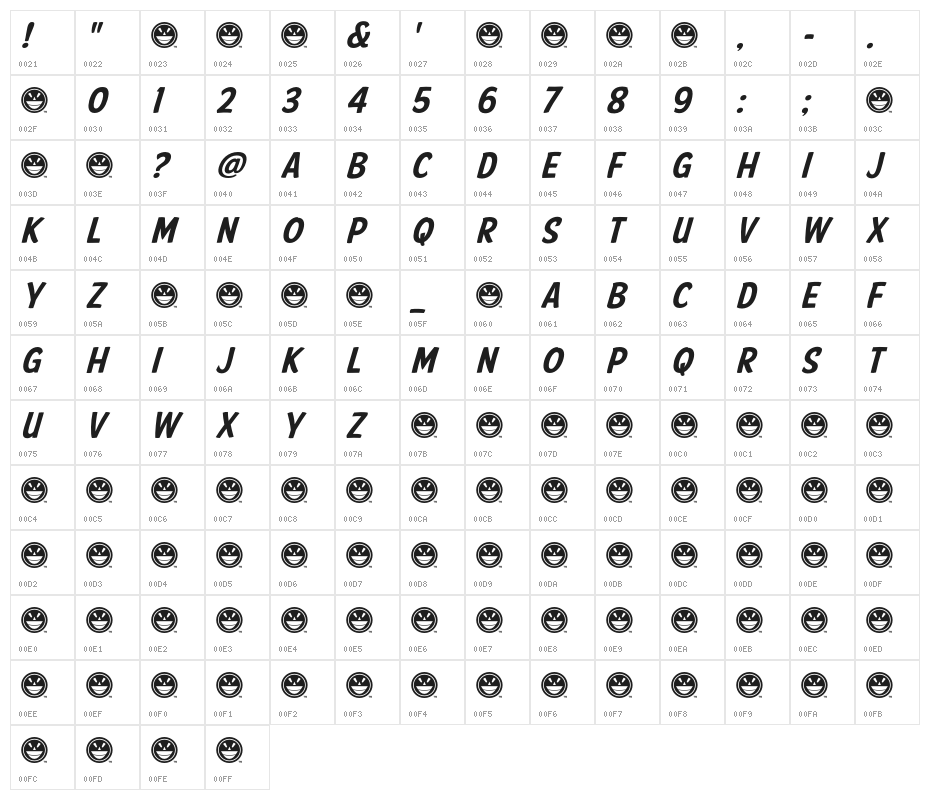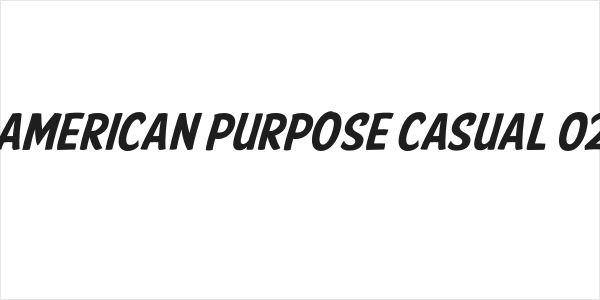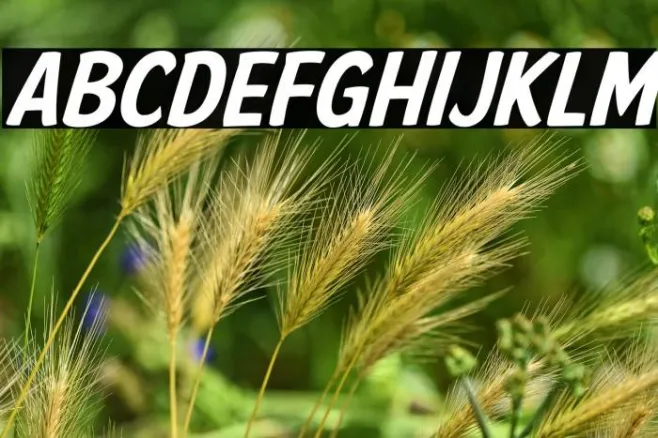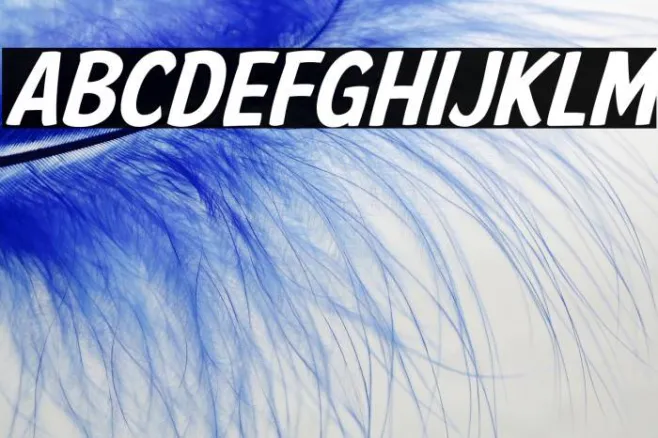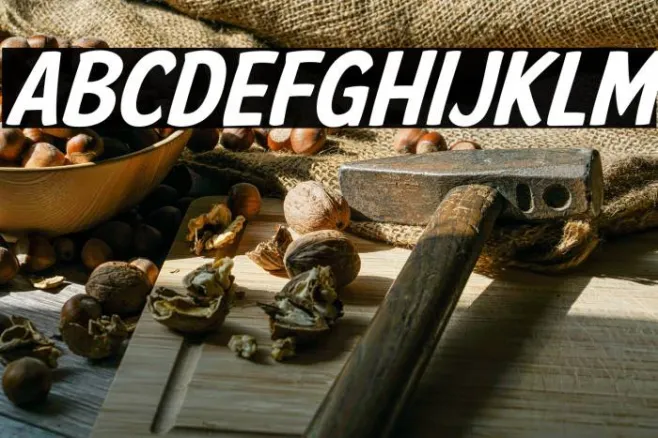
American Purpose Casual 02 Font
American Purpose Casual 02 Description
This font features a bold and dynamic style with a slight slant, giving it an energetic and casual appearance. The characters are well-defined with a consistent stroke width, contributing to its readability. The uppercase and lowercase letters maintain a cohesive look, while the numerals are clear and distinct. Special characters are included, adding versatility to the font. Its playful yet professional design makes it suitable for a variety of applications.
| Proposed Projects | Ideal for branding, advertising, posters, and headlines where a lively and engaging look is desired. |